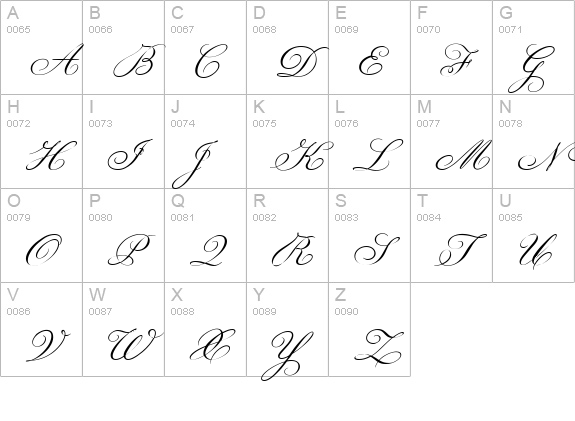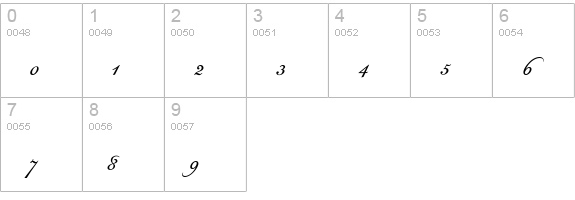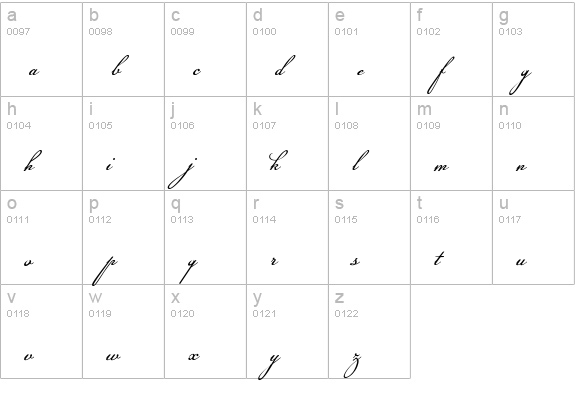
Champignon Font Details
Champignon is a free for personal use font in the Script > Calligraphy category. It has been downloaded 300 times and is available for Windows, Mac and Linux.
Introducing Champignon, a captivating and versatile font that will add a touch of elegance to any project. This exquisite typeface combines the beauty of handwritten script with a modern twist, making it perfect for a wide range of design applications. Champignon's flowing curves and delicate strokes create an effortlessly graceful appearance, evoking a sense of sophistication and refinement. Its charming and whimsical nature makes it ideal for wedding invitations, greeting cards, logos, branding, and more. But what truly sets Champignon apart is its accessibility. Designed with the idea of inclusivity in mind, this font is freely available to download at FontsMarket.com. Yes, you read that right – Champignon can be yours at no cost, allowing you to unleash your creativity without breaking the bank. Whether you're a professional designer looking to add a touch of elegance to your work, or an aspiring creative seeking a font that stands out from the crowd, Champignon is the answer. With its free availability, you can experiment and explore the endless possibilities of this captivating typeface, bringing your vision to life with ease. Don't miss out on this opportunity to enhance your designs with the timeless beauty of Champignon. Download it now for free at FontsMarket.com and embark on a journey of creativity and inspiration.